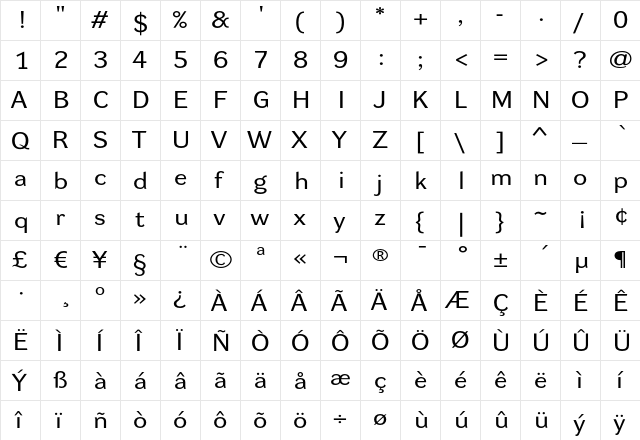
DynaGrotesk RXE Regular Font Preview
DynaGrotesk RXE Regular
DynaGrotesk RXE Regular Font Details
| Foundry | Frantisek Storm, stormtype.com |
Design Context for DynaGrotesk RXE Typeface
DynaGrotesk RXE has the quiet confidence of well-executed sans-serif typography: versatile, unobtrusive, and dependable at any size.
Font Pairing: Works well alongside a characterful serif or display font that can carry the expressive load while DynaGrotesk RXE handles the functional copy.
Pro Tip: Pair DynaGrotesk RXE with a display or serif font for headlines — its neutral character makes it an excellent supporting player in complex typographic systems.